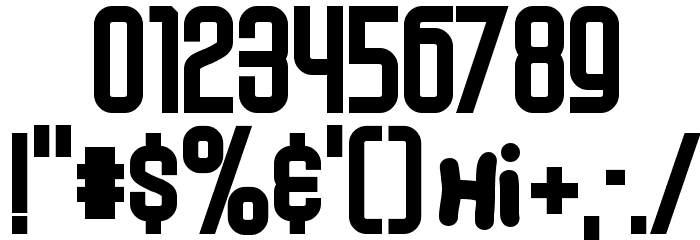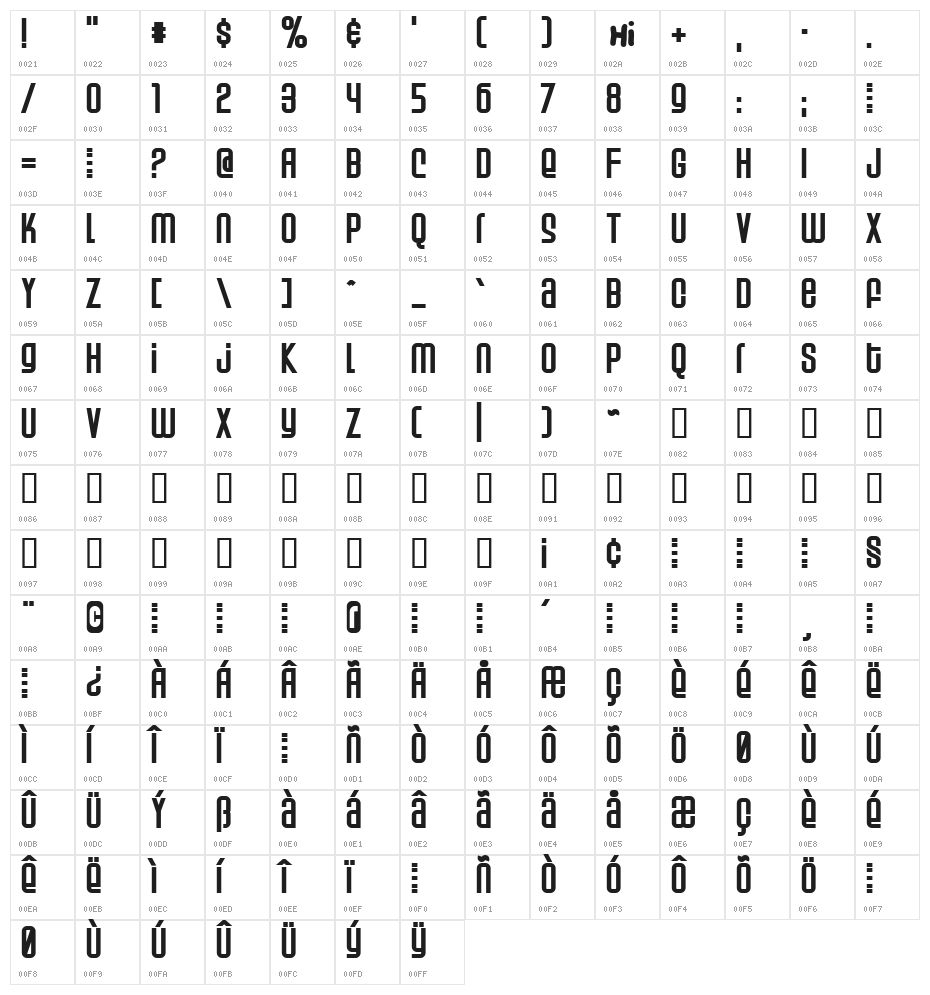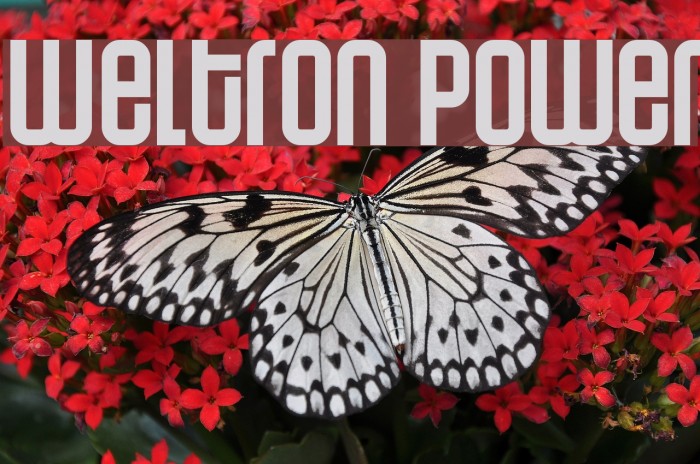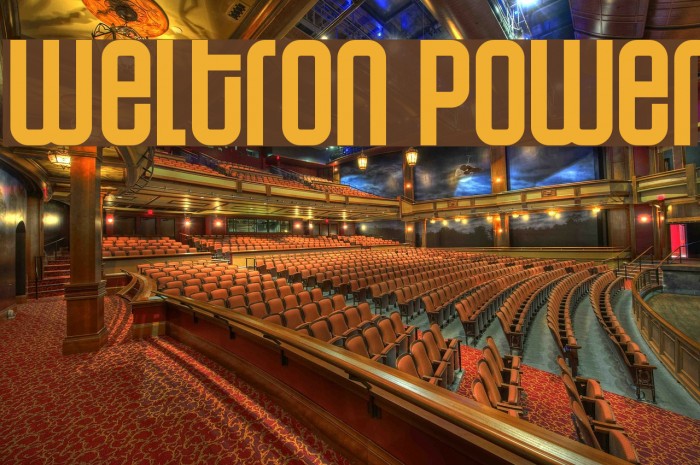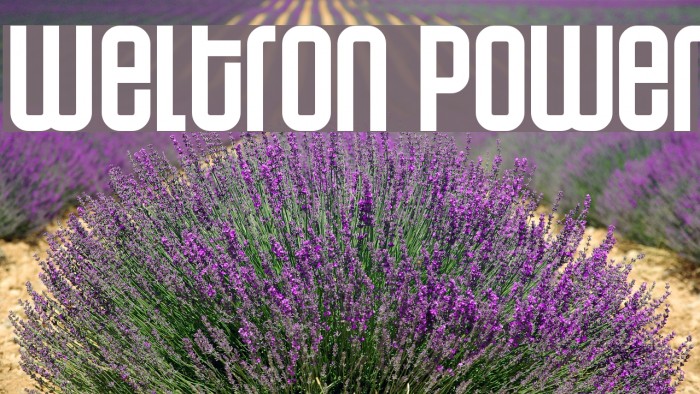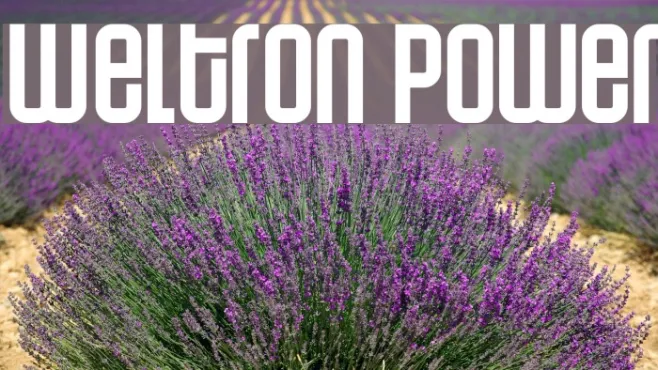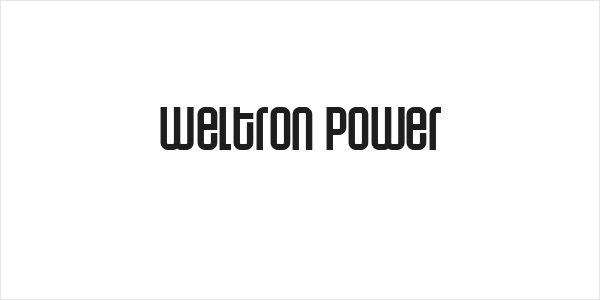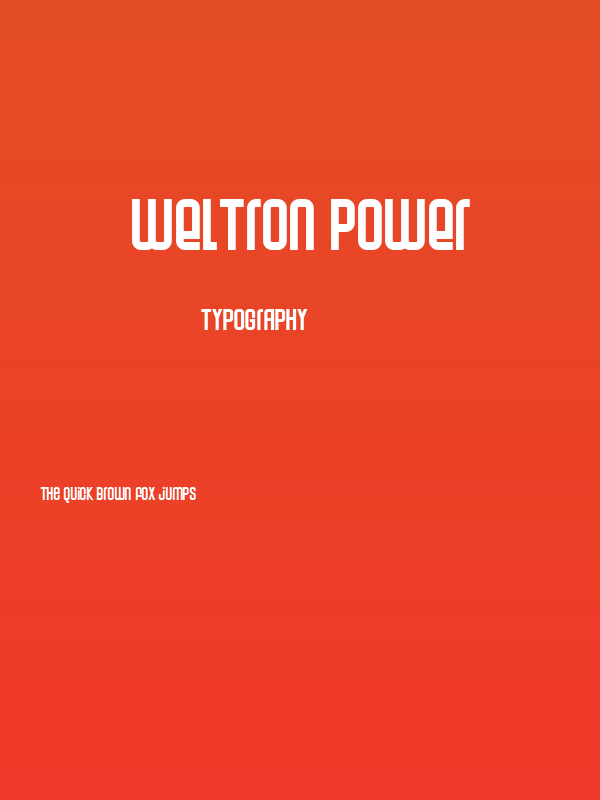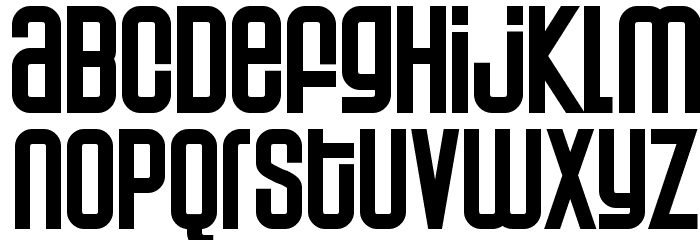
Weltron Power Font
Weltron Power Description
This font features a bold, geometric design with a modern and futuristic aesthetic. The characters are constructed with consistent stroke widths, giving it a uniform and cohesive appearance. The uppercase and lowercase letters maintain a similar height, enhancing readability and creating a compact look. The numerals and special characters are designed to match the boldness and geometric style of the alphabet, ensuring a seamless integration across different text elements. This font's design is ideal for making a strong visual impact, with its clean lines and structured form.
| Proposed Projects | Ideal for technology branding, futuristic posters, video game interfaces, and modern advertising campaigns. |